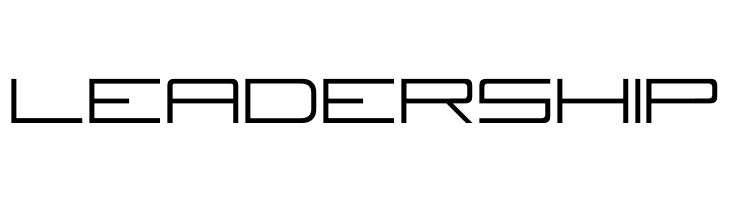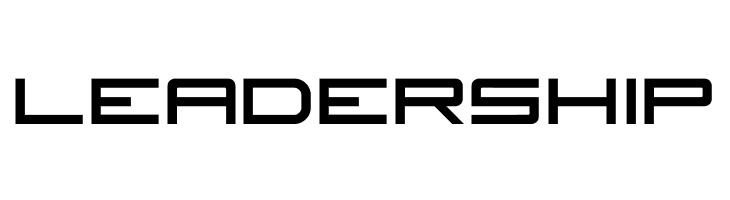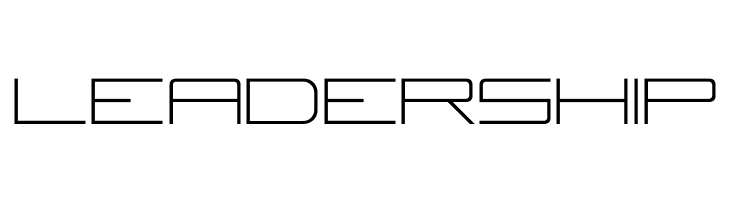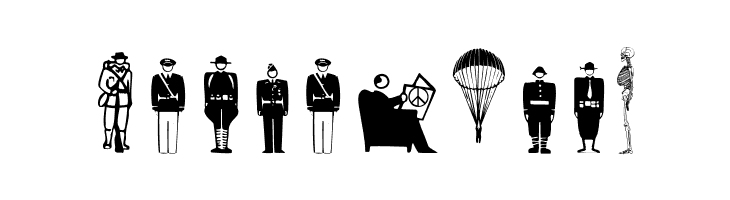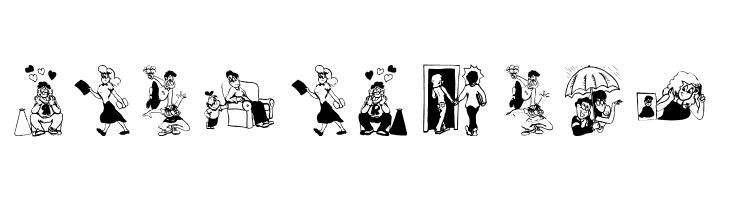
• Fight Kid Condensed Italic
A bold, condensed, and italic font with high contrast and dynamic, brush-like strokes.
• Fight Kid Italic
A bold, brush-style italic font with dynamic, expressive strokes.
• Fight This
• FightersForFreedom
Bold pictogram dingbats depicting military and war-related imagery.
• Figure writing
A bold, brush-style font with dynamic, calligraphic strokes.
• Figures
A pictorial, decorative font mimicking ancient cave art and petroglyphs.
• Final Frontier
A futuristic, angular font with sharp edges and geometric shapes.
• Final Frontier Old Style
• Final Frontier Shipside
• Fine 'Tooning
• FineArts
A fine arts-themed decorative dingbat font with detailed art-related icons.
• Fire Flight FREE
An ornate and dramatic Blackletter-style font with intricate details.
• Fire Stone Free
A dynamic and expressive cursive script font with elegant, sweeping strokes.
• Fire Wood Regular
A dynamic, flame-inspired decorative font with jagged, organic edges.
• Firefly Castle
A playful, handwritten font with a whimsical and informal style.
• Fireguns tfb
A novelty font using firearm silhouettes as letterforms.
• Firestarter
A bold, fiery font with jagged, distressed characters.
• Fireworks_Mono
A decorative font with characters encased in fireworks-like bursts.
• Fireye GF 3
• Fireye GF 3 Bold
• Fireye GF 3 Headline
• Fireye GF 3 Headline Condensed
• Fireye GF 3 Lite
• First Blind 2
• First Edition JL
A decorative font with letters encased in book-like frames, ideal for literary-themed designs.